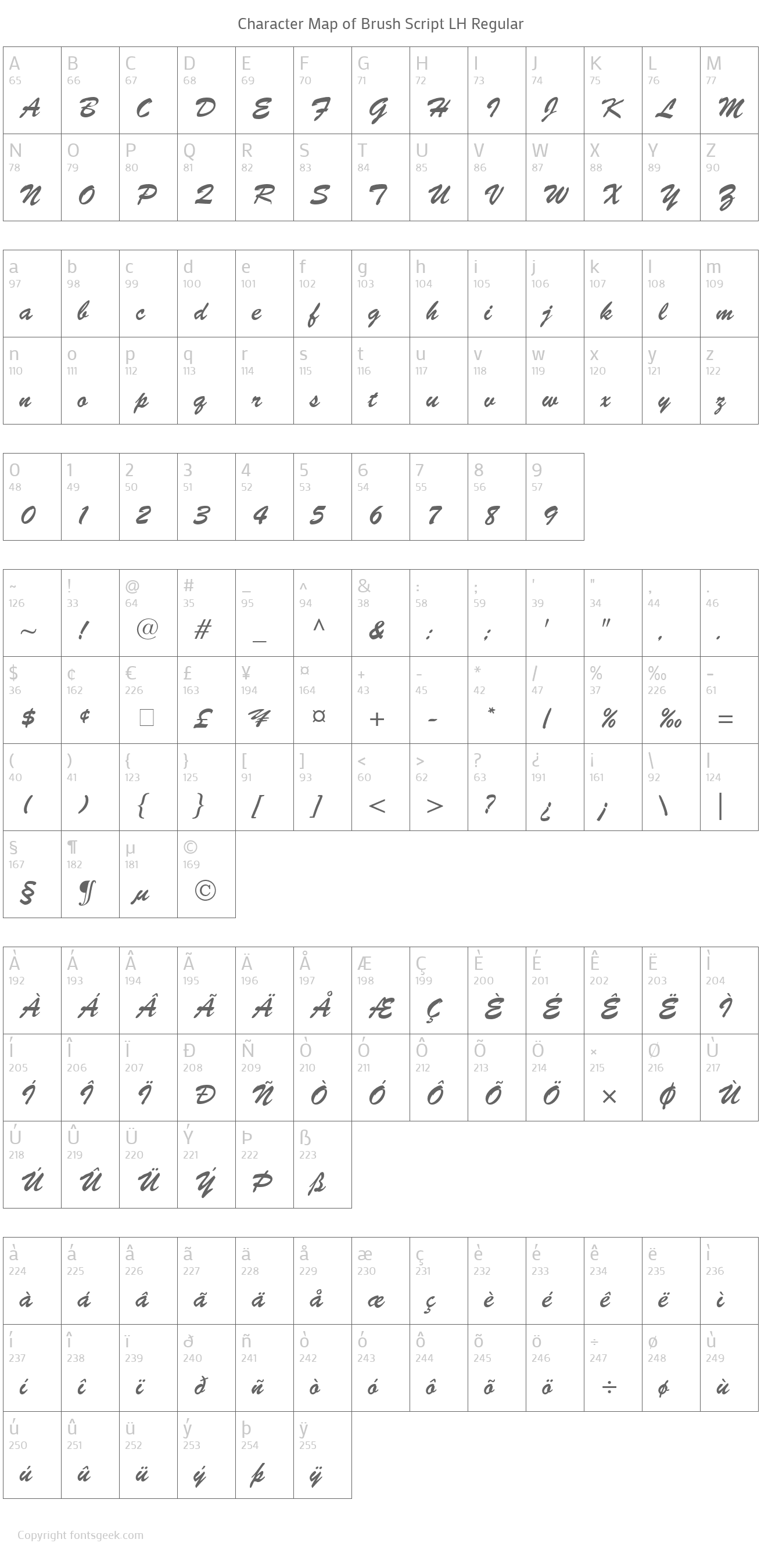
This heavy, informal script looks as though it was written with a brush because its lowercase letters join together. Copyright (c) 1992 image club graphics, inc.